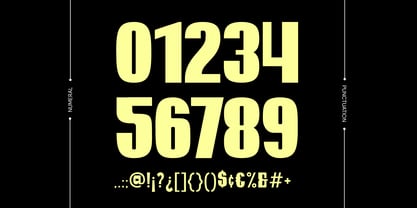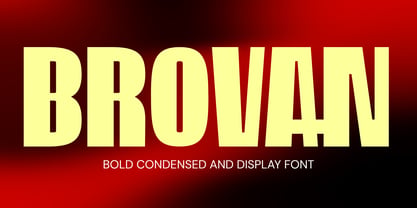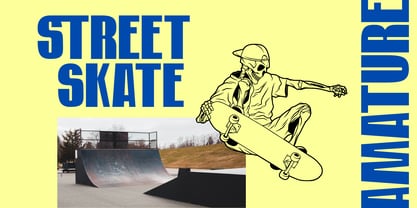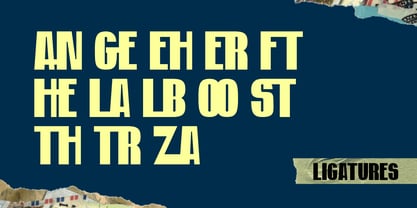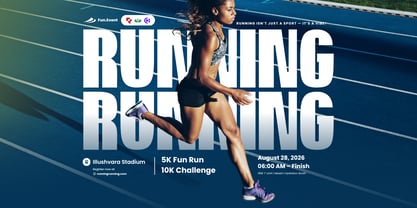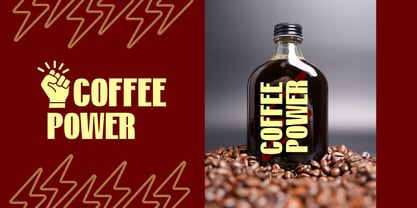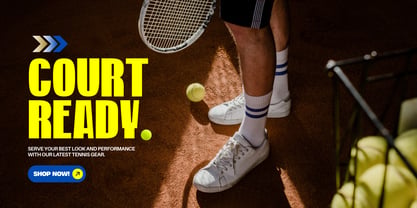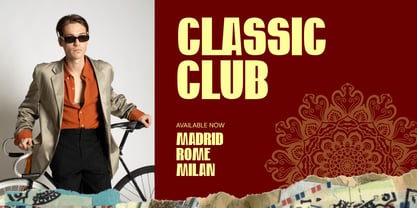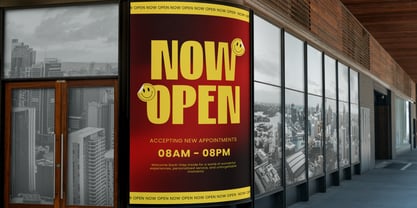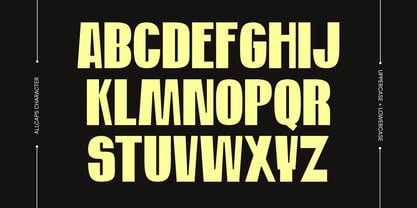
Brovan
by Illushvara
The Brovan Font Family was designed by Bayu Suwirya and published by Illushvara. Brovan contains 1 styles. More about this family
Brovan is a bold condensed display font crafted to make every headline stand out. It delivers a strong, modern, and athletic look perfect for sports branding, running events, padel and tennis graphics, racing, posters, signage, packaging, logos, social media, and editorial headlines. Its space-saving condensed design creates maximum visual impact while remaining clean and highly readable. Whether you're building a powerful brand identity or eye-catching promotional materials, Brovan is the perfect choice for bold typography that demands attention.
Designers: Bayu Suwirya
Foundry: Illushvara